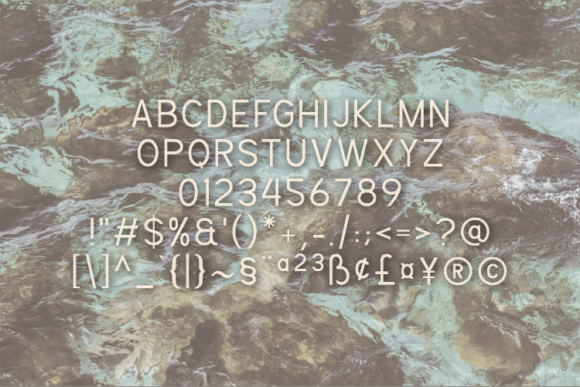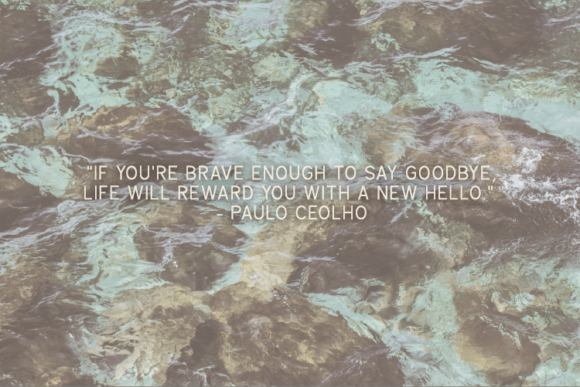
Beechfeld Font: The Ultimate Sans Serif Font for Your Creative Projects
Are you a designer or crafter looking for the perfect font to elevate your projects? Look no further than Beechfeld, an authentic sans serif font designed to complement every project you wish to create. With its clean and modern aesthetic, Beechfeld is perfect for a wide range of applications, from displays and headers to invitations, save the dates, weddings, and more!
The Characteristics of Beechfeld Font
Beechfeld is a sans serif font, which means it doesn’t have the small lines or flourishes at the ends of the letters. This gives it a clean and minimalist look that’s perfect for modern designs. The font is also highly legible, making it easy to read in a variety of sizes and contexts. Whether you’re using it for a bold headline or a subtle body of text, Beechfeld is sure to deliver.
What Makes Beechfeld So Versatile?
So, what makes Beechfeld so versatile? For starters, its sans serif design makes it a great choice for a wide range of projects, from digital designs to print materials. It’s also highly adaptable, looking great in a variety of colors and sizes. Whether you’re using it for a wedding invitation, a save the date, or a display ad, Beechfeld is sure to make a statement.
Beechfeld is a font that’s specifically designed with designers and crafters in mind. Its clean and modern aesthetic makes it perfect for a wide range of creative projects, from handmade cards and invitations to digital designs and more. Whether you’re a professional designer or a crafty DIY enthusiast, Beechfeld is sure to become a go-to font in your toolkit.
Use Beechfeld for:
- Displays and headers
- Invitations and save the dates
- Weddings and other special occasions
- Digital designs, such as social media graphics and blog posts
- Print materials, such as brochures and flyers
- Handmade cards and crafts
Why Choose Beechfeld?
So, why choose Beechfeld over other fonts? For starters, its unique and authentic design sets it apart from more generic fonts. It’s also highly legible and adaptable, making it easy to use in a wide range of contexts. Plus, its clean and modern aesthetic makes it perfect for modern designs.
Tips for Using Beechfeld
Here are a few tips for getting the most out of Beechfeld:
- Experiment with different sizes and colors to find the perfect look for your project.
- Pair Beechfeld with other fonts to create a unique and eye-catching design.
- Use Beechfeld for headlines and titles to add a touch of modern style to your project.
- Don’t be afraid to get creative and try new things – Beechfeld is a versatile font that’s perfect for experimenting with different design ideas.
In conclusion, Beechfeld is an authentic sans serif font that’s perfect for designers and crafters looking to elevate their projects. With its clean and modern aesthetic, versatility, and high legibility, Beechfeld is sure to become a go-to font in your toolkit. Whether you’re working on a display, header, invitation, or any other project, Beechfeld is the perfect choice.